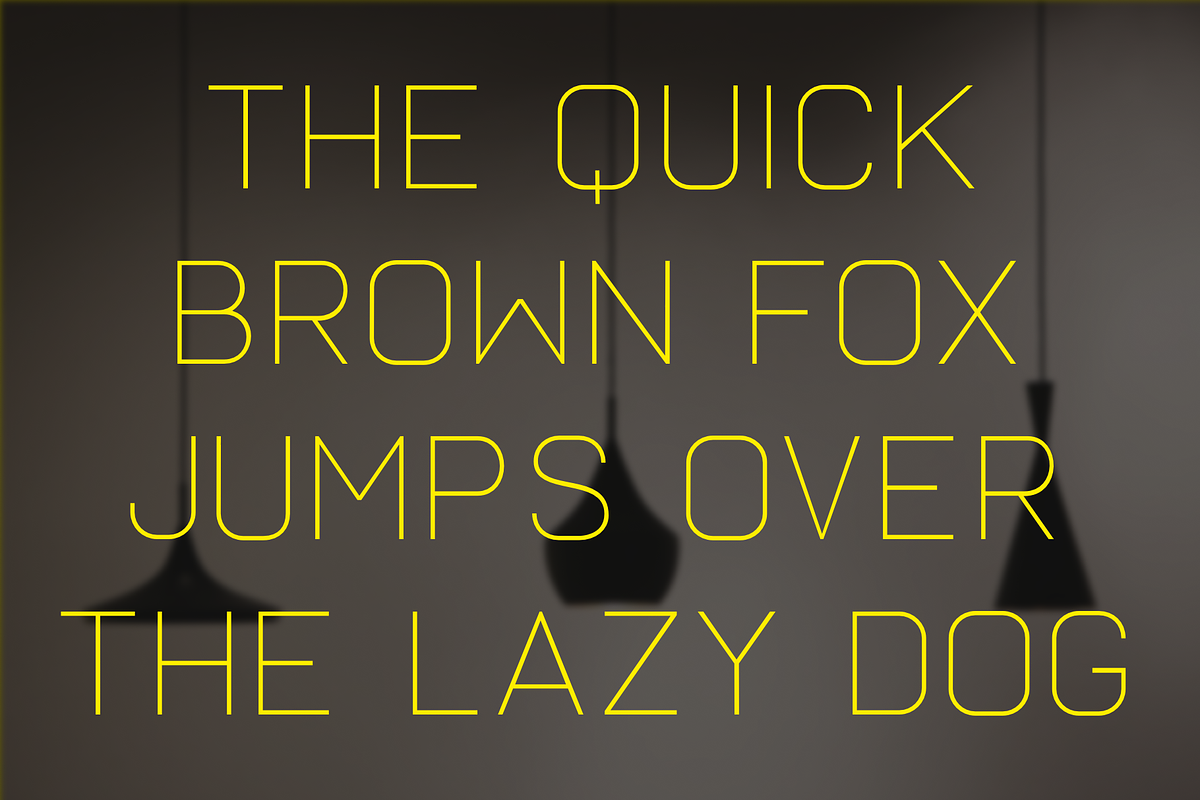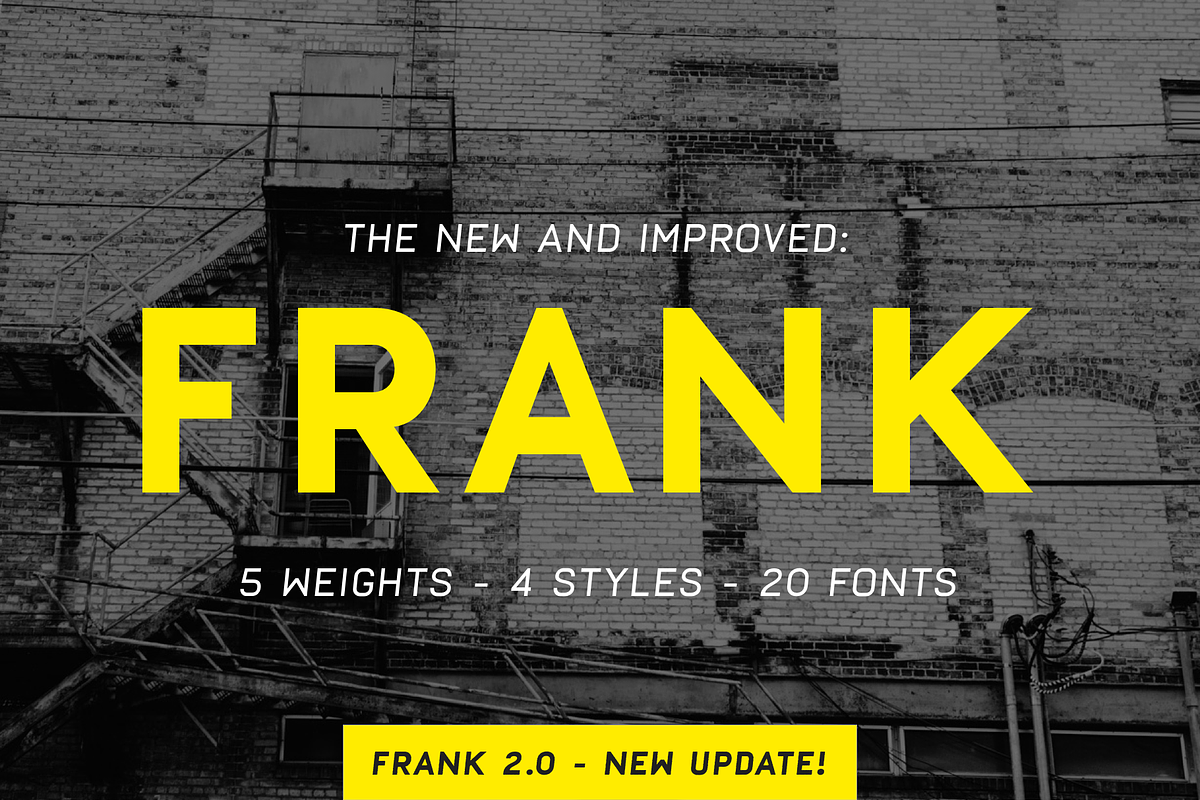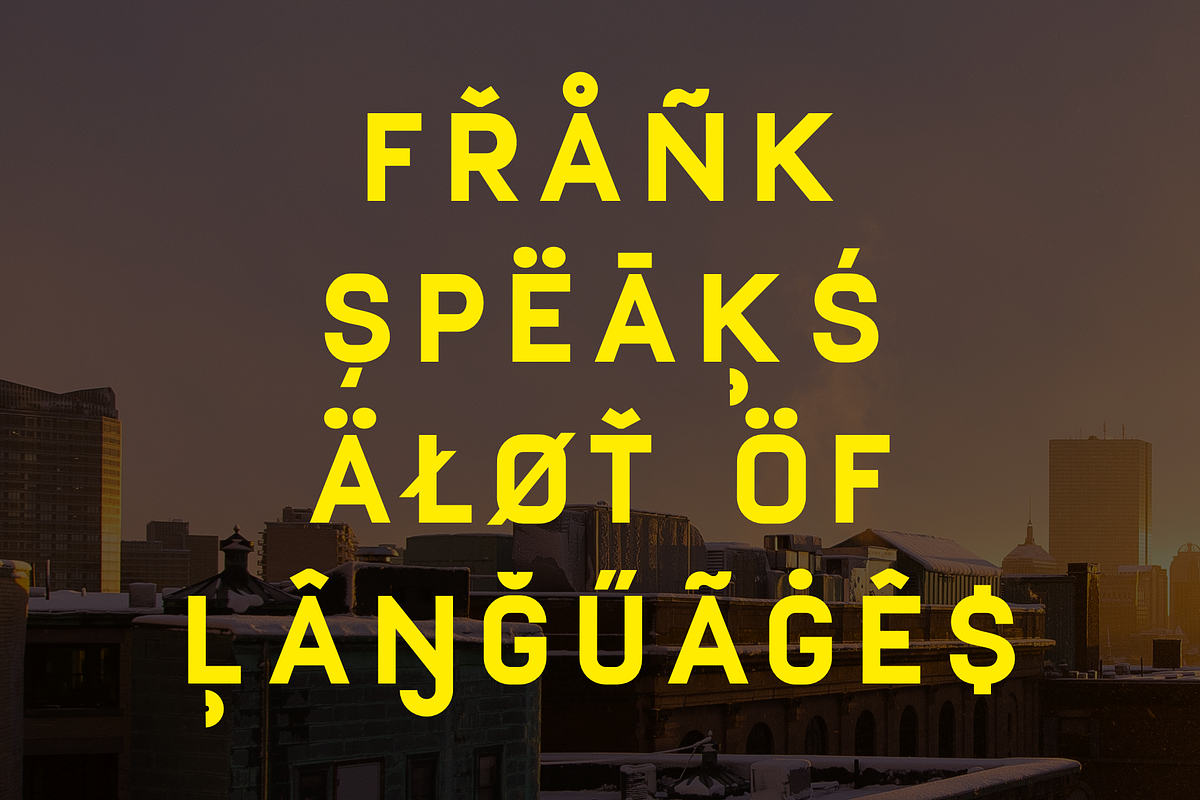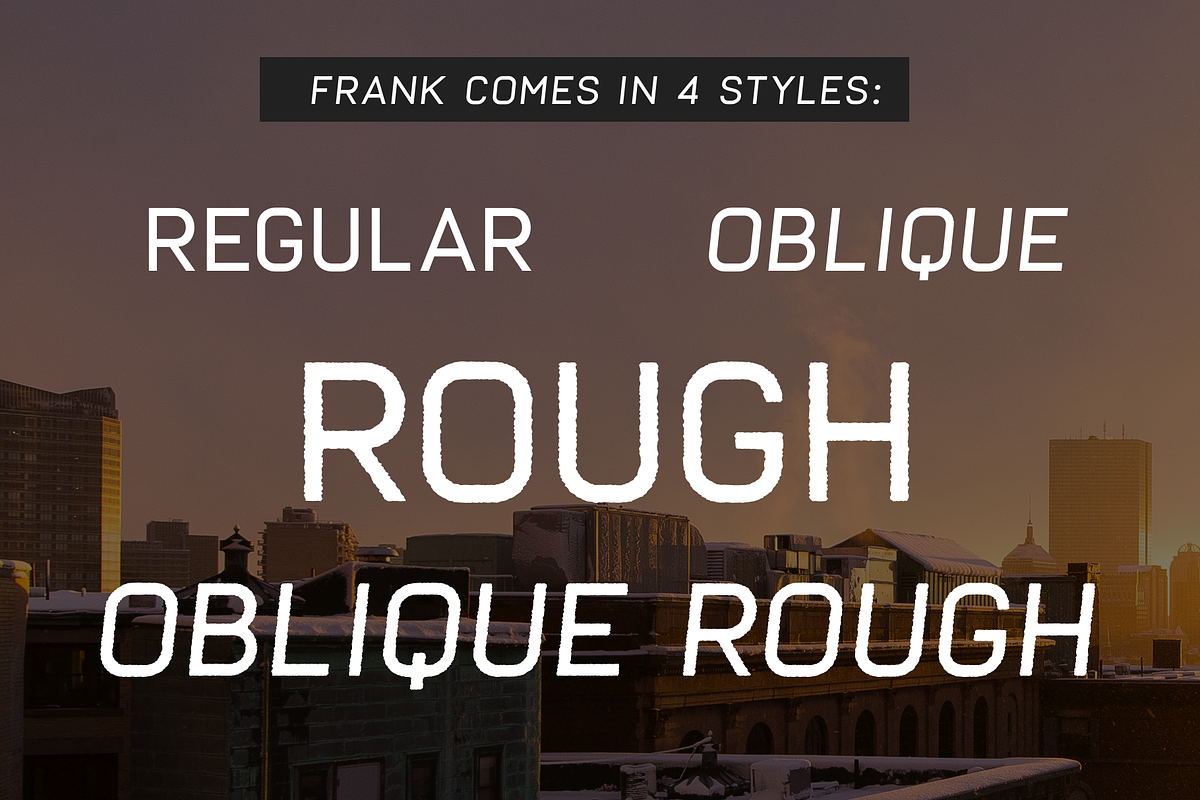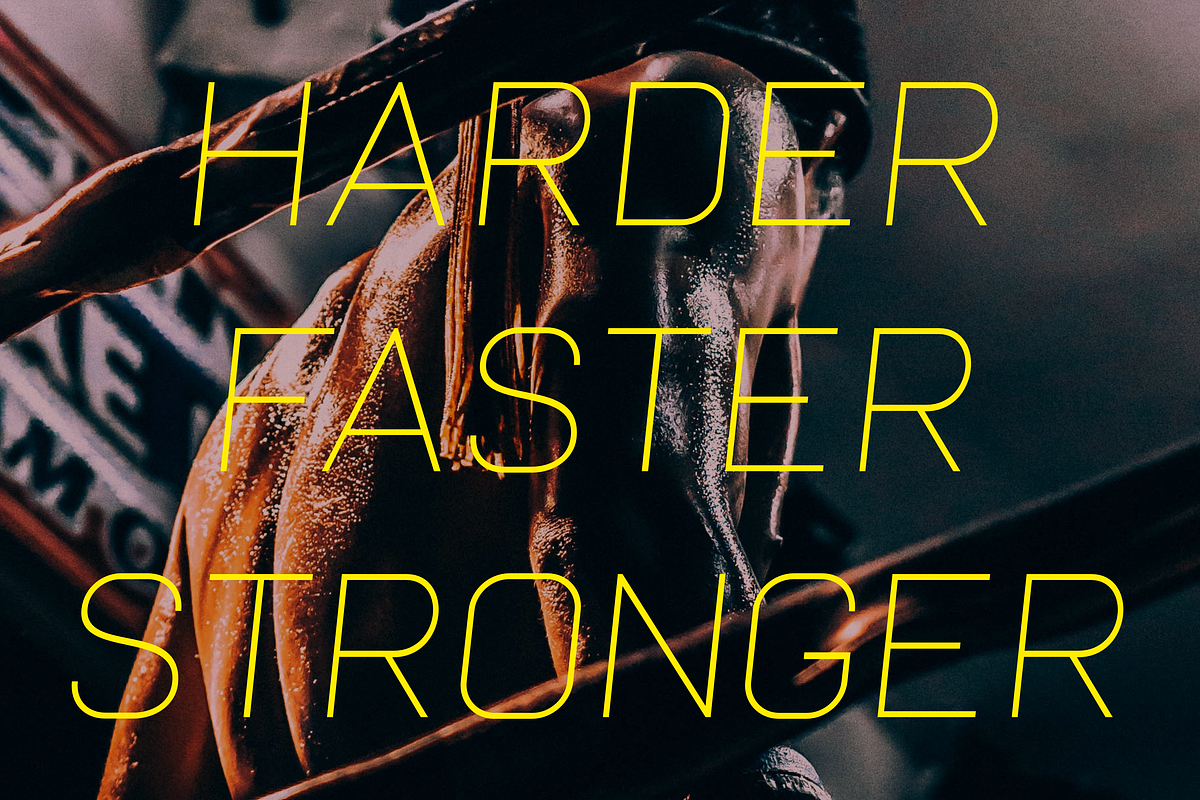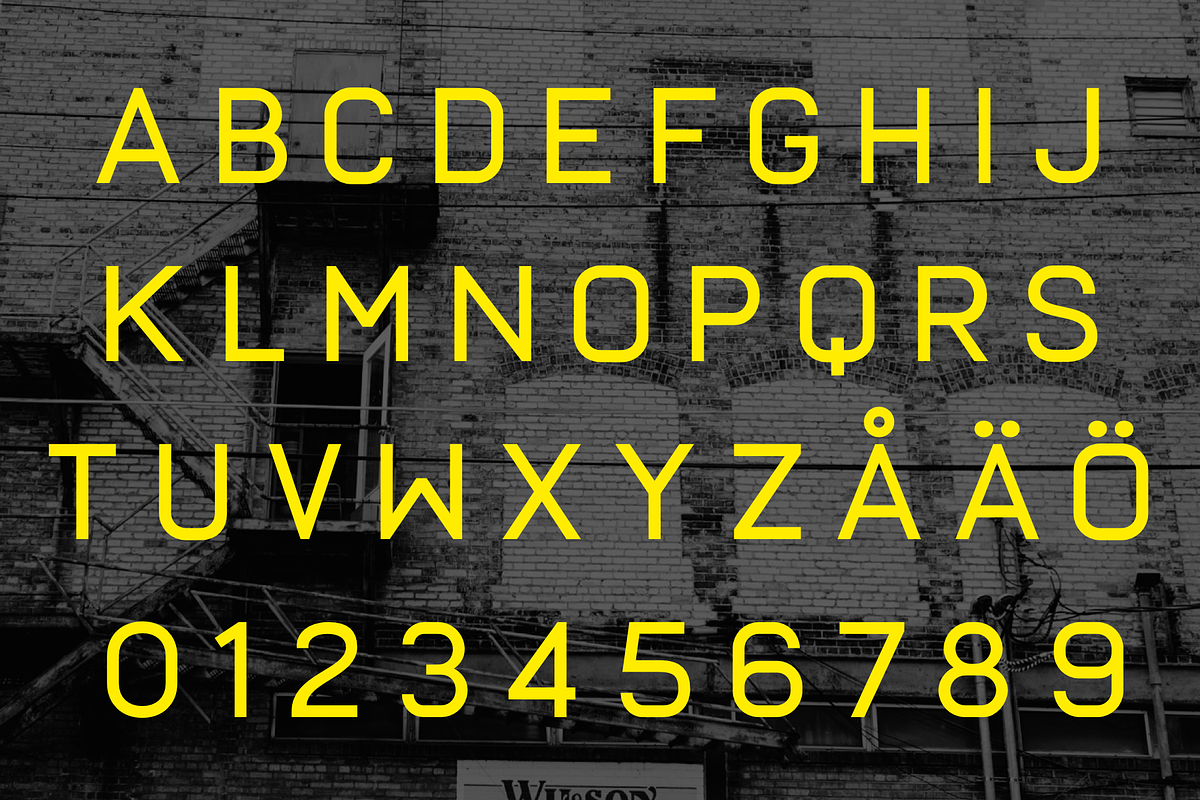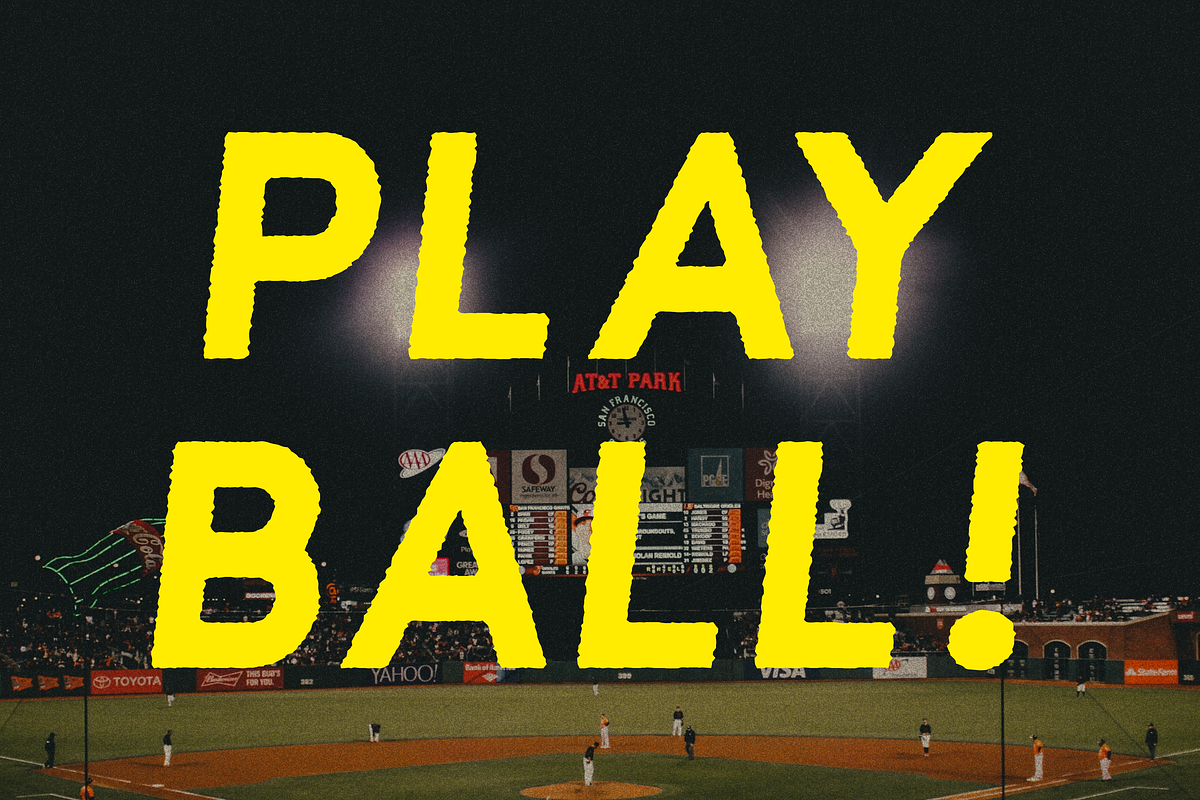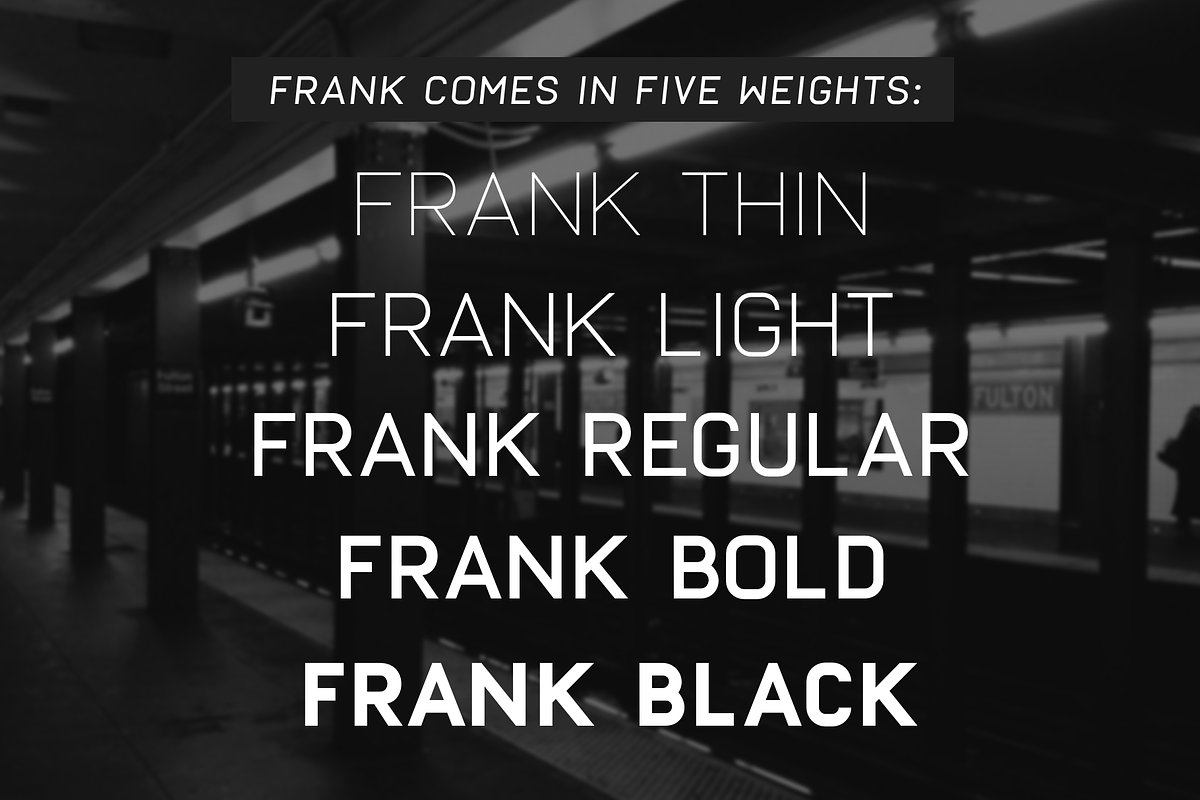
Frank - Display sans with 20 fonts
Frank - Display sans with 20 fonts by Great Scott! is a font selected for branding, posters, packaging, typography.
- I've redrawn some wonky characters, fixed some kerning issues and added an oblique and rough version of Frank.
Why Frank - Display sans with 20 fonts is worth a look
Frank - Display sans with 20 fonts by Great Scott! fits naturally into Branding, posters, packaging, typography.